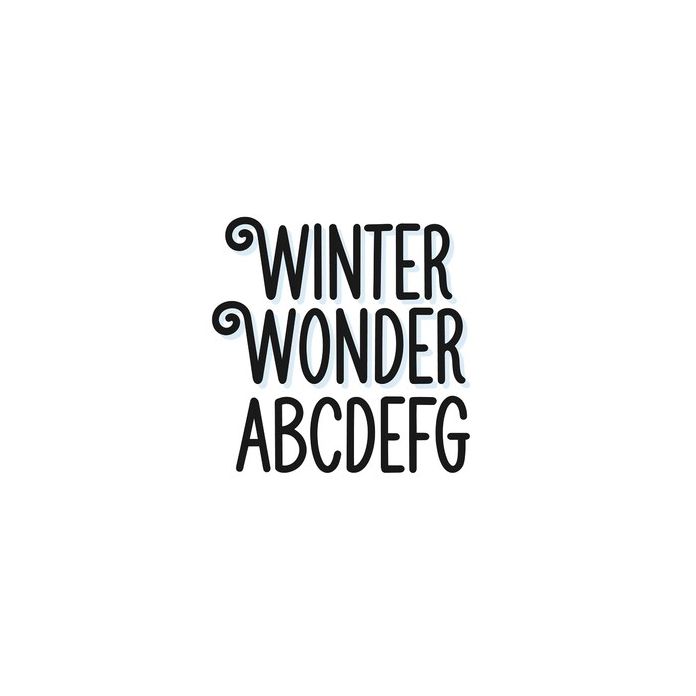
BFC Winter Wonder Festive Christmas Font
Winter Wonder is a swirly Christmas/Winter font. Use the caps for swirled letters - lowercase for plain letters.